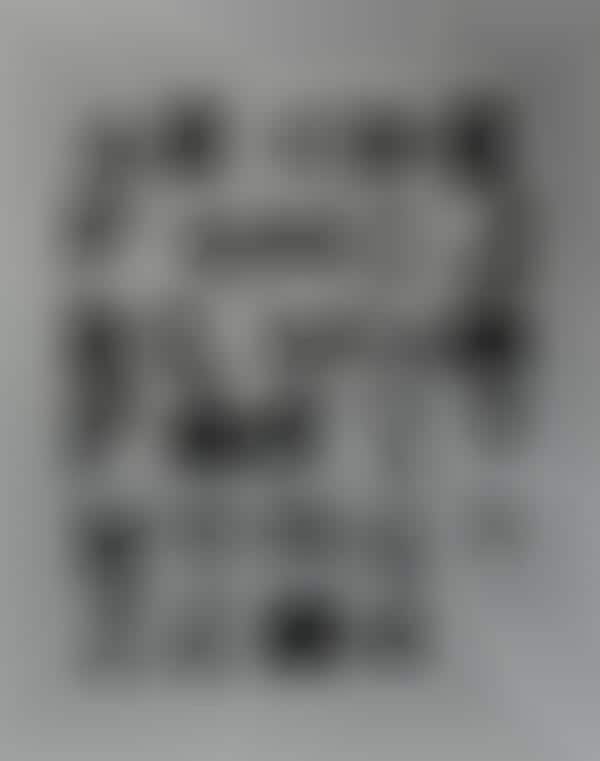
Origami has always been a widely respected art form down from the smallest creation to giant six foot wide models. The Ole Fredrik Ekern Gami Font is the first time I've seen these paper cranes used as lettering.
Mr. Ekern has used the manipulation of paper to create all 26 finely crafted letters. The time it must take to create an elaborate work of art like that would be staggering, although I guess if you're a master than it's nothing more than child's play.
I just hope the Ole Fredrik Ekern Gami Font becomes a downloadable font so I can start writing all of my articles in it.